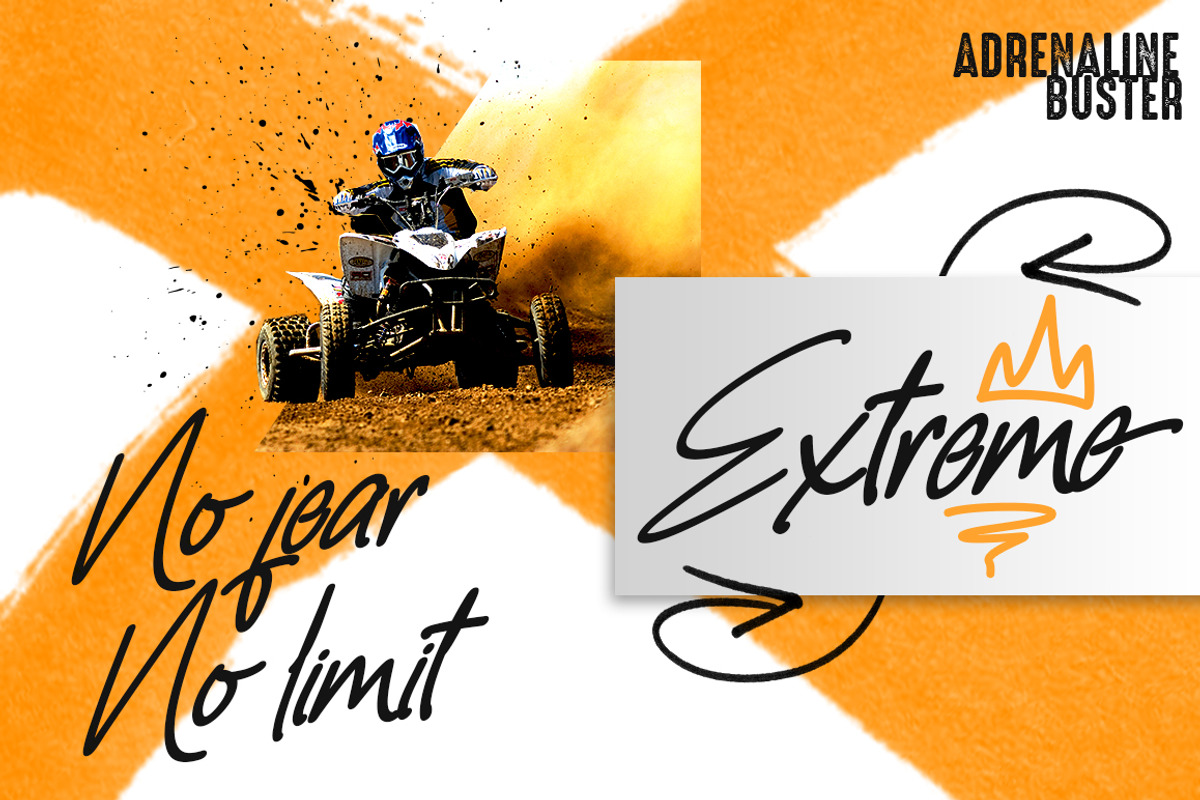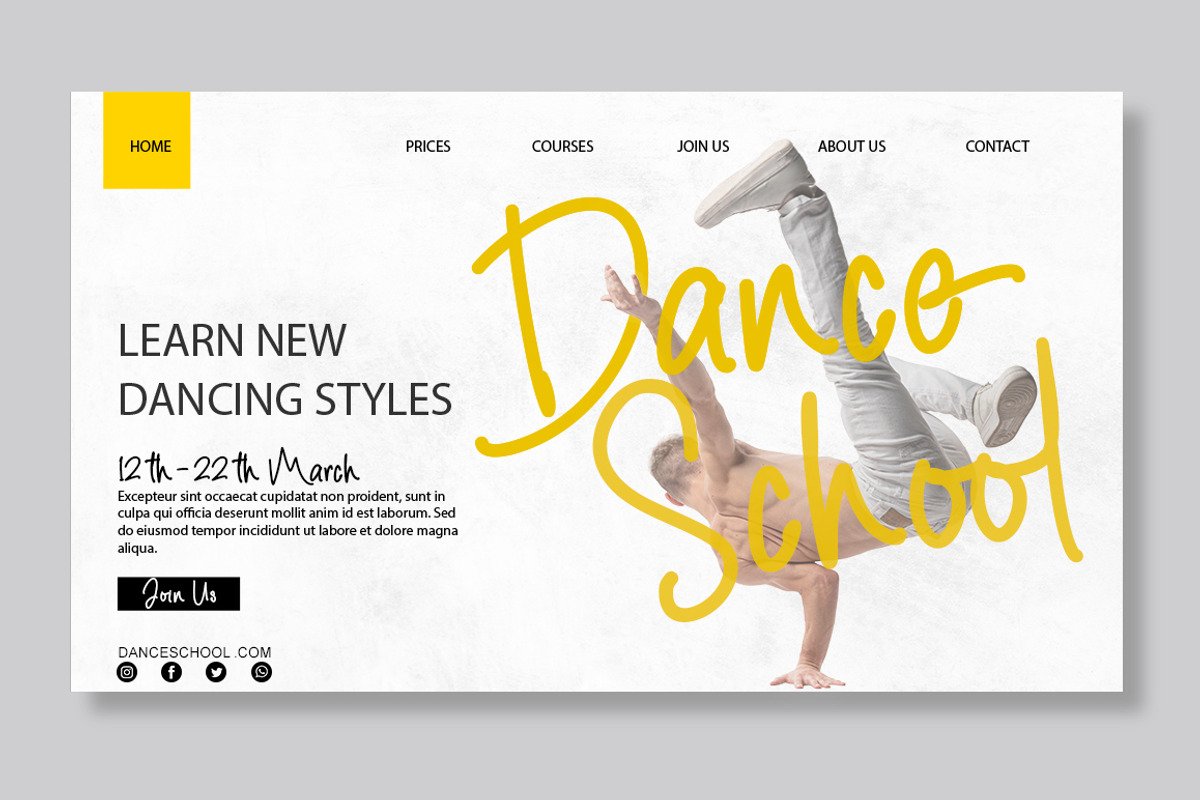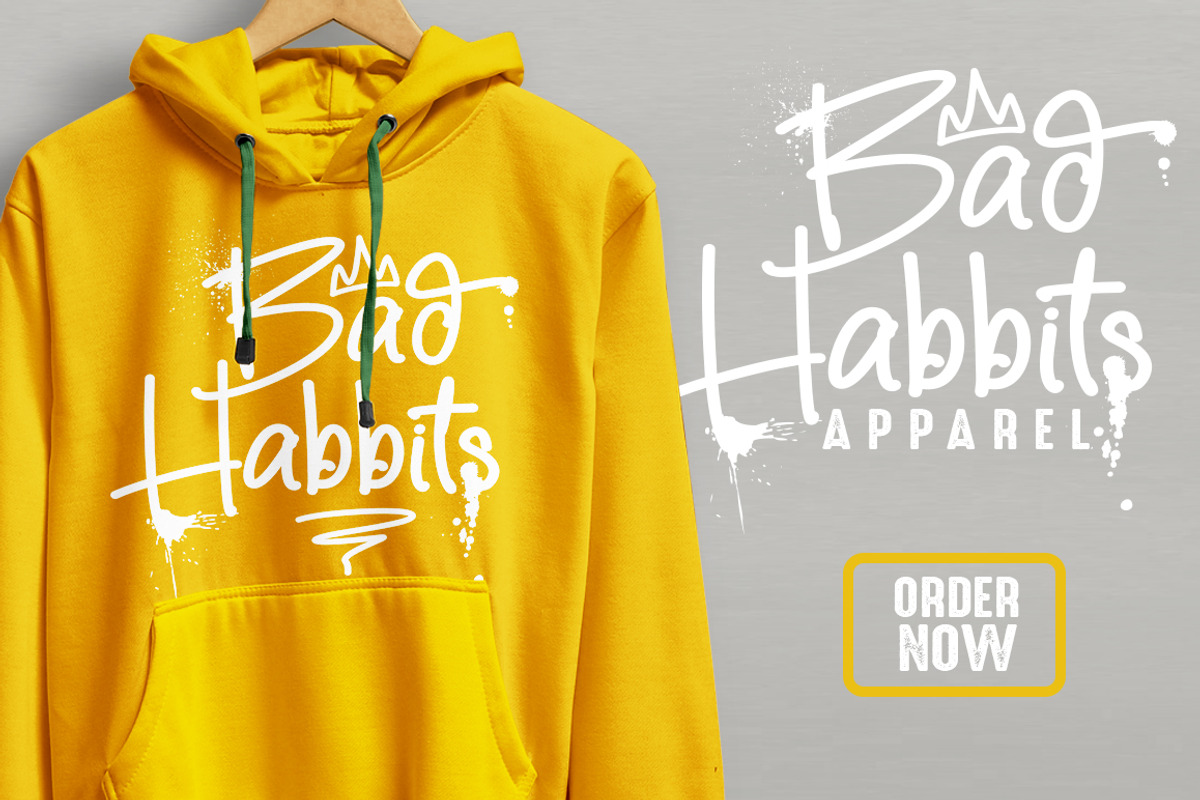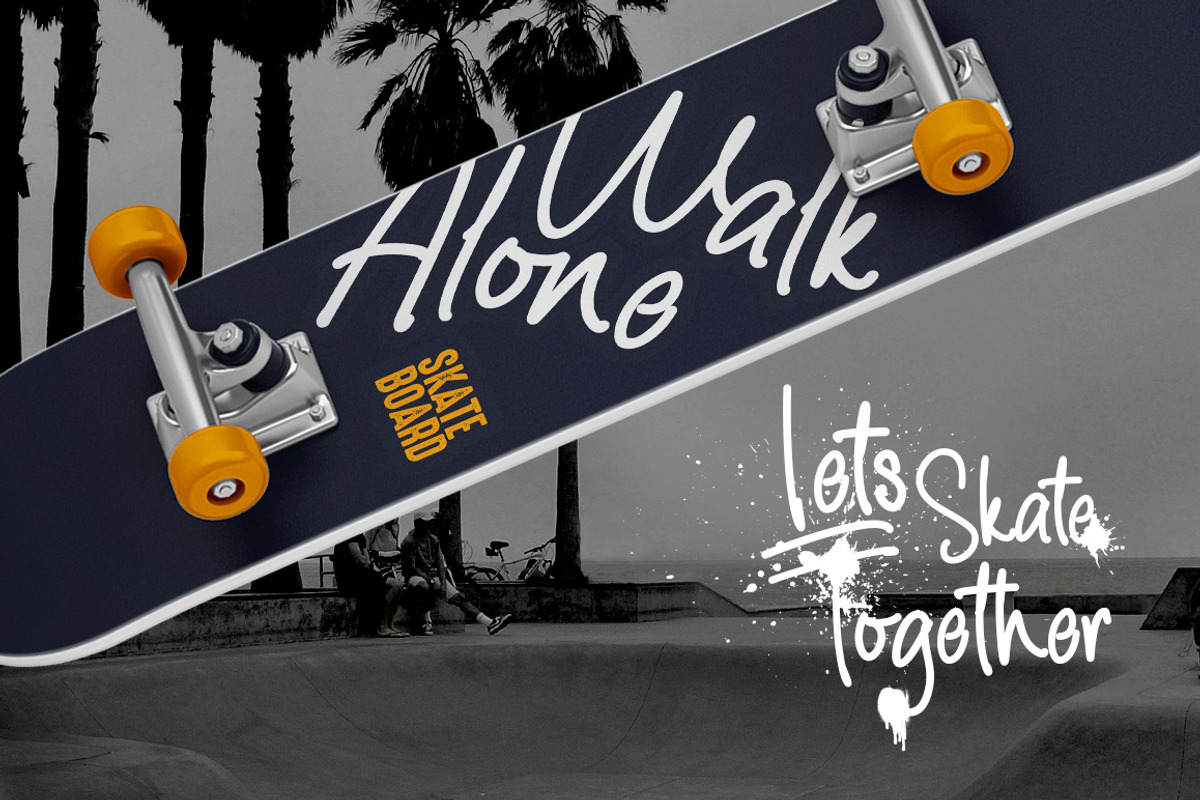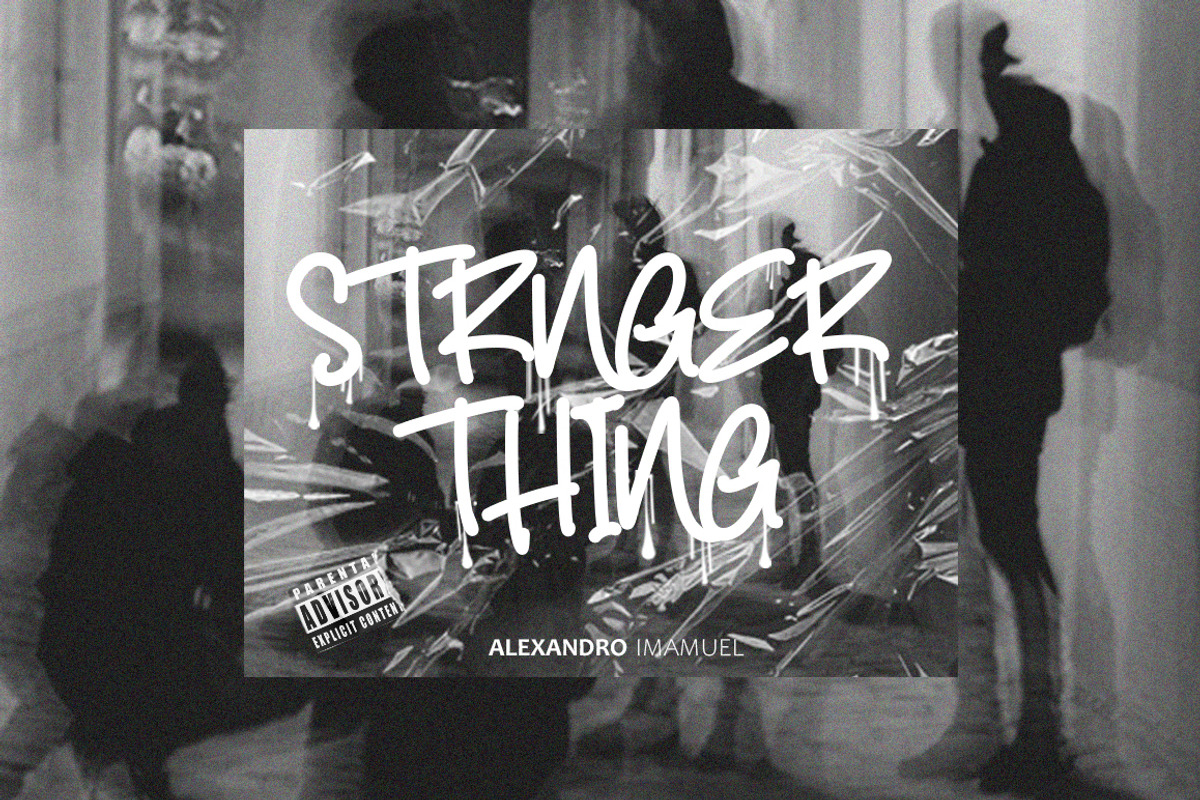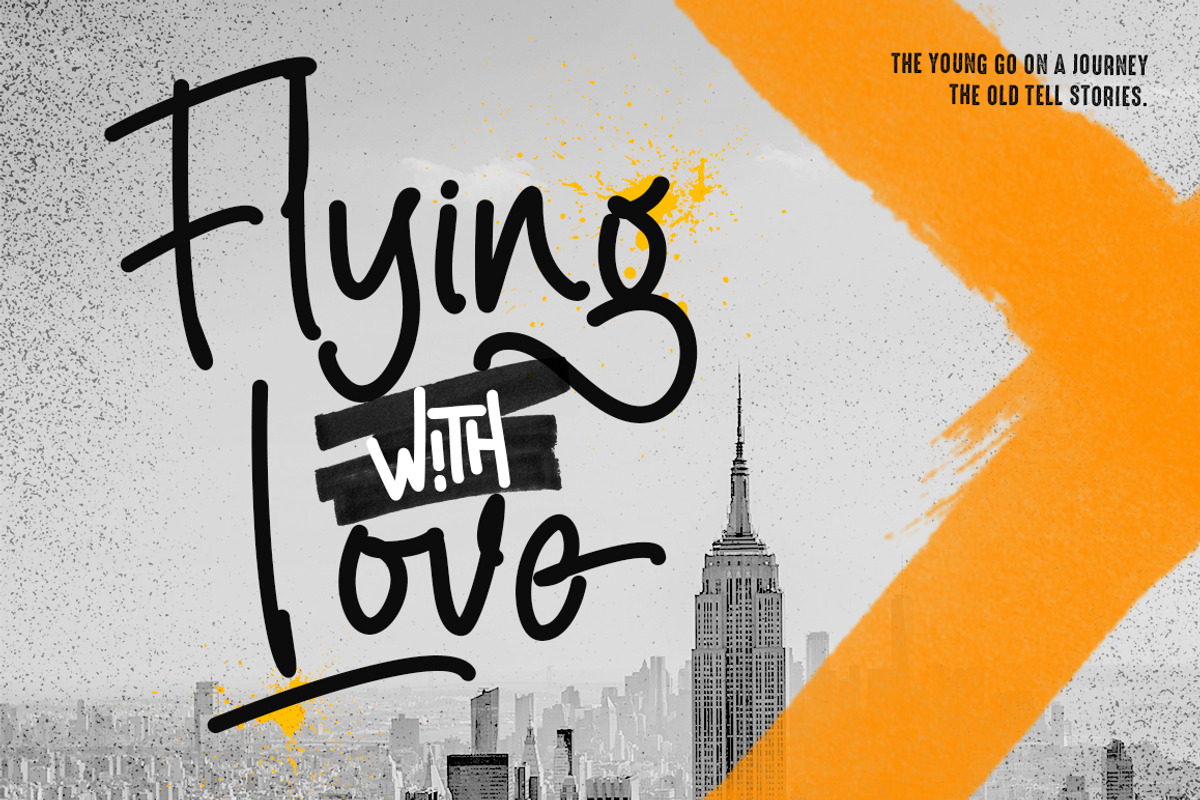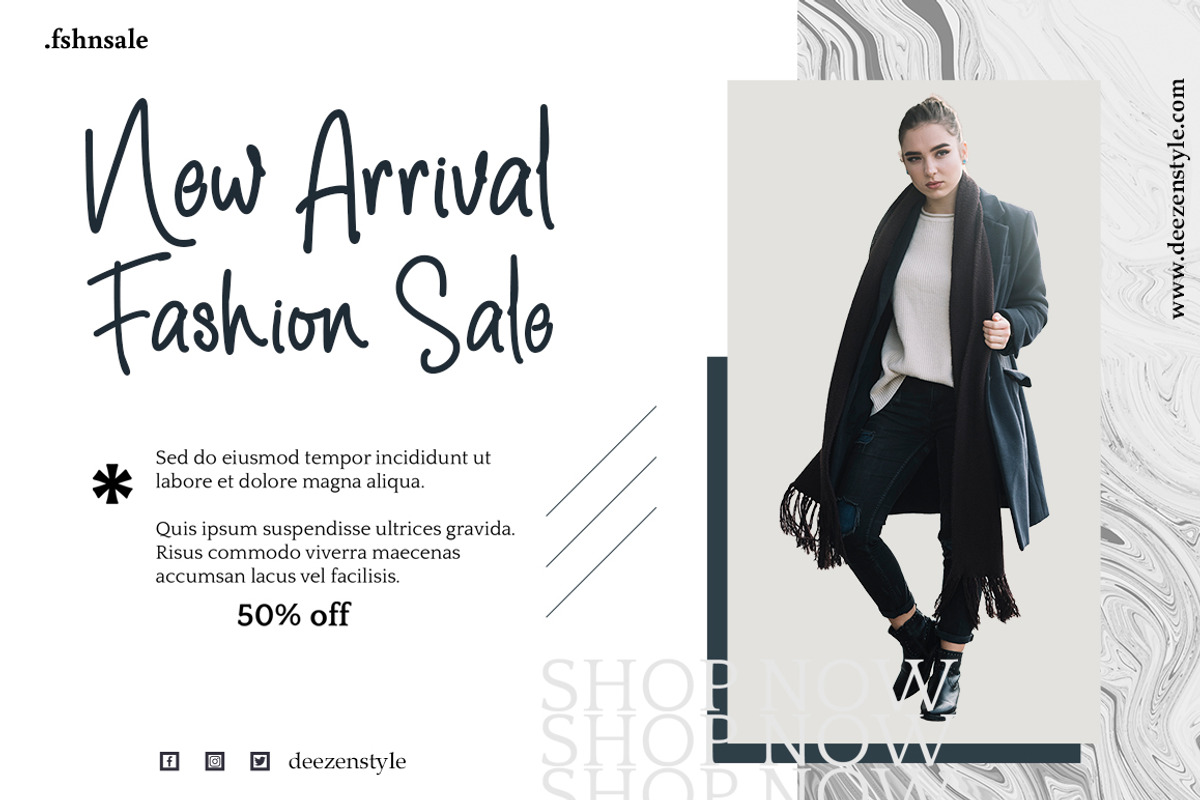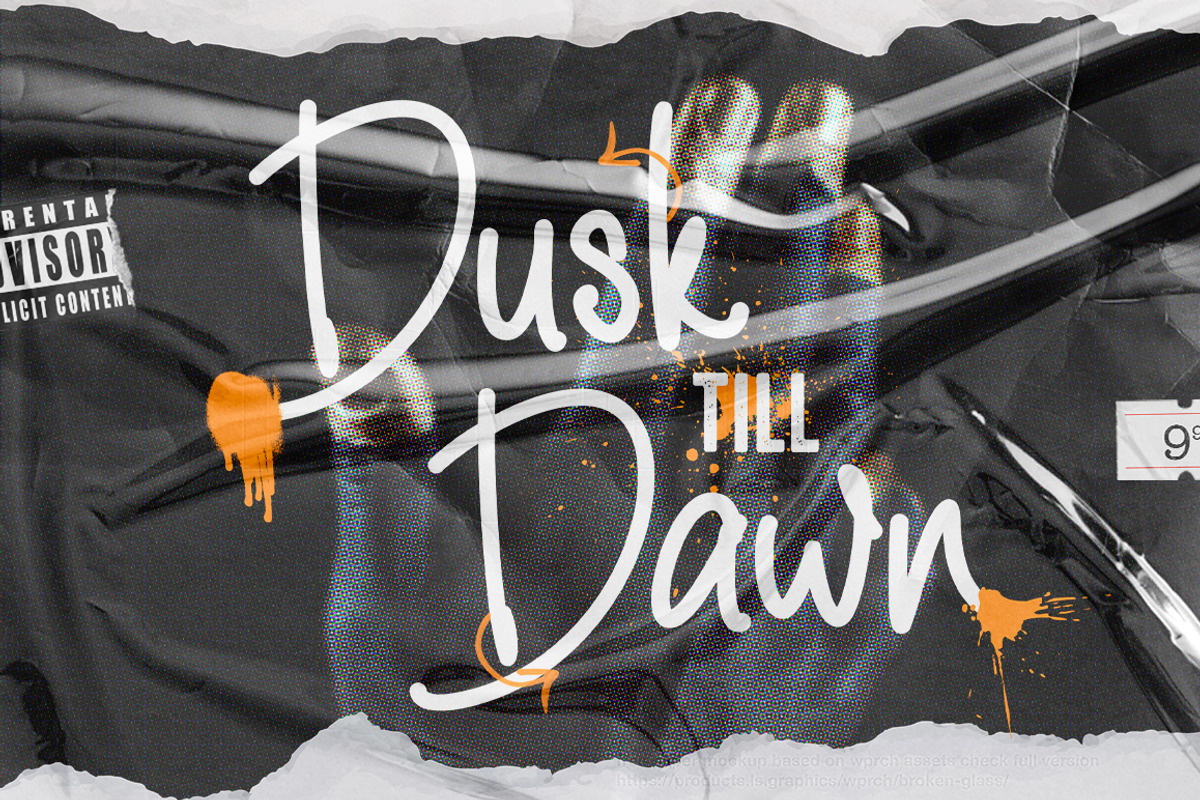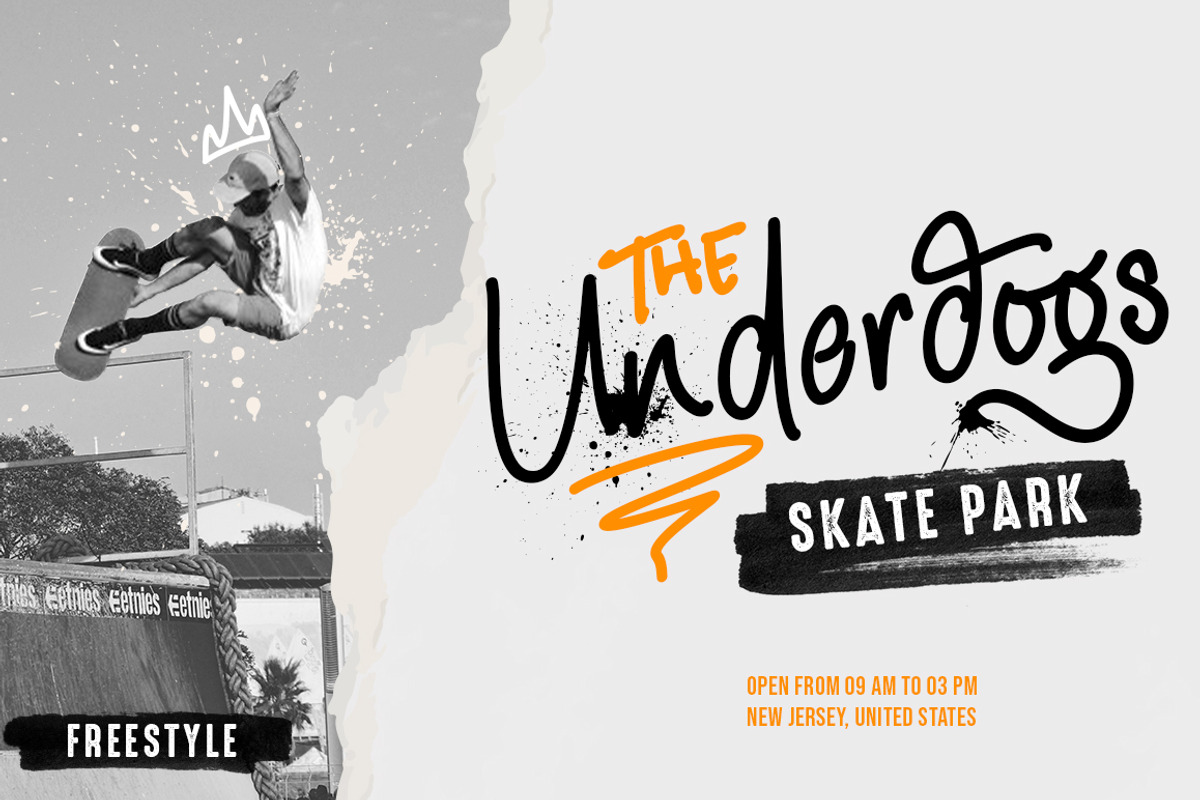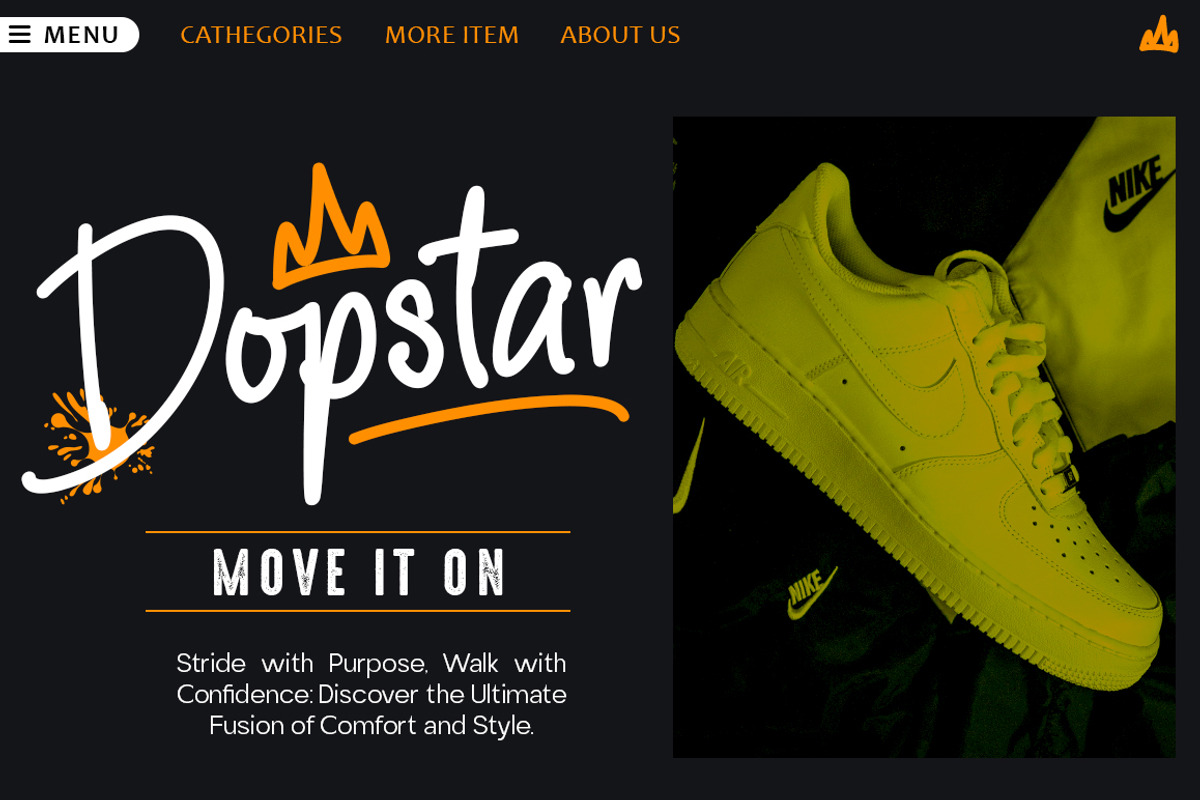
Shizzeline
Shizzeline, is a handwritten font with an italic style. Here you will get beautiful classic fonts.
Shizzeline too Available in several modern designs that can make your work look elegant, Shizeline is also equipped with several interesting dodles to complement your work.
With this style, This font is suitable for logos, branding projects, household designs equipment, product packaging, mugs, quotes, posters, shopping bags, logos, t-shirts, book covers, business cards, invitation cards, and all your other beautiful projects.